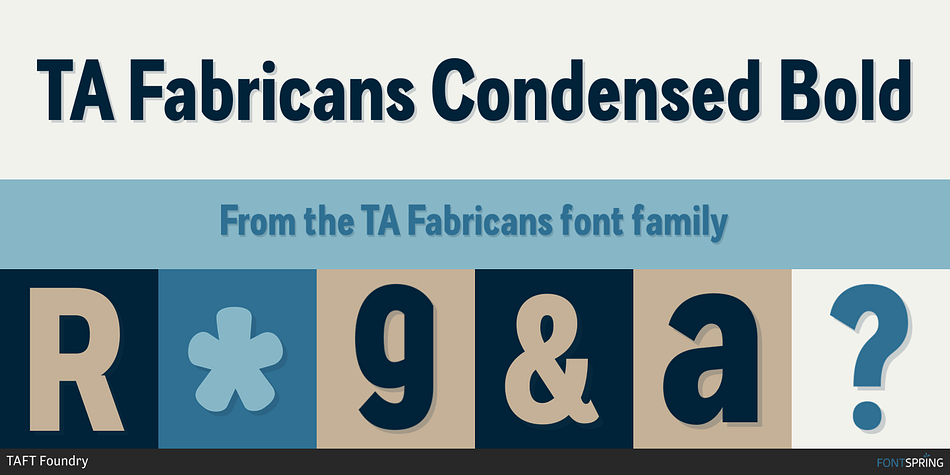
TA Fabricans Condensed Bold
TA Fabricans is a display sans and sans serif font family. This typeface has thirty-six styles and was published by TAFT Foundry.
TA Fabricans works great for branding, magazines, headers, logos, TV, UI, web, badge, packaging, headlines, posters, t-shirt/apparel etc. TA Fabricans offers you options to explore a whole host of applications and gives a real modern feel to any project.
Family overview:
36 fonts, 9 weights (from Thin to ExtraBlack) + Condensed, Expanded, Display
Latin, Hebrew
Display font without Hebrew
Multilingual
Localized Forms with NLD, PLK
OpenType Features:
Localized Forms
Contextual Alternates
Tabular Figures
Subscript
Scientific inferiors
Superscript (Superiors)
Numerators
Case Sensitive Forms
Standard and Discretionary Ligatures
Stylistic Alternates
Kern
Ordinals